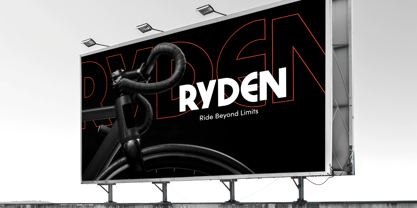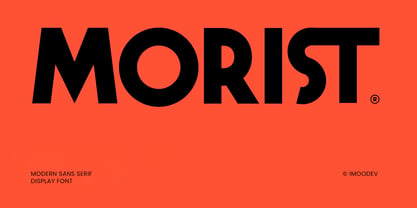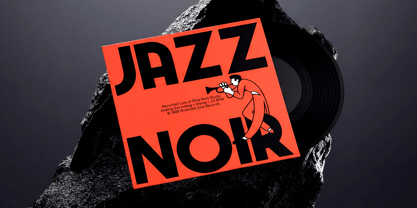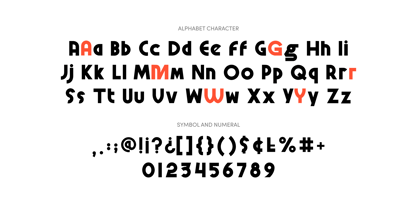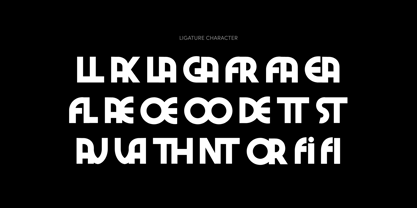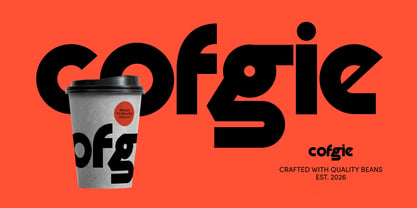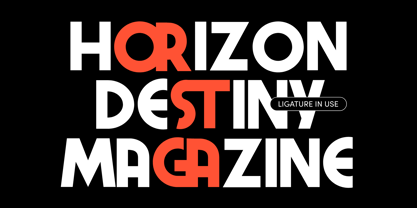
Morist
by Imoodev
The Morist Font Family was designed by Aulia Savira Putri and published by Imoodev. Morist contains 1 styles. More about this family
This font has a striking, high impact personality that perfectly balances retro industrial aesthetics with a hyper modern, geometric edge. Morist is a bold modern sans serif display font designed to command attention through its unique use of negative space and stylistic ligatures. Elevate your visual identity with Morist, a modern bold sans serif display font that blends architectural precision with a touch of Bauhaus flair. Characterized by its heavy weights and unexpected geometric cut outs, Morist is engineered for designers who want to break away from traditional typography. The font's standout feature is its dynamic ligature system, which allows characters to interlock seamlessly, creating a custom lettered look for logos and headlines. Whether you are designing a high performance sports brand, a minimalist lifestyle magazine, or an edgy streetwear label, Morist provides the versatility to look both sophisticated and rebellious. Best use cases this font excels in: Branding and Logos: Specifically for tech, coffee shops, or fashion brands. Large Scale Advertising: Perfect for billboards and posters. Editorial Design: Mastheads for modern magazines.
Designers: Aulia Savira Putri
Foundry: Imoodev